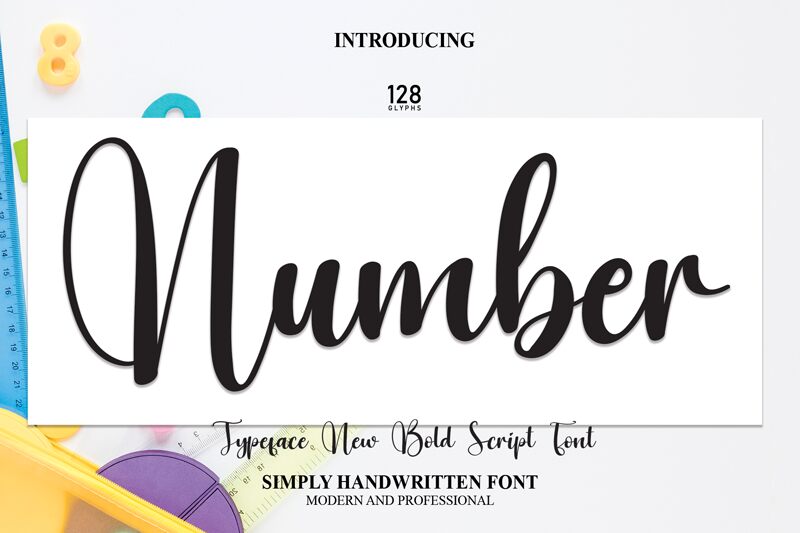
Number
Number, designed by Scratchones, is an exquisite calligraphy font that exudes a sense of fluid elegance and refined grace. Its semi-light weight offers a delicate balance between finesse and readability, making it an exceptional choice for designs that require a touch of sophistication without sacrificing clarity. The flowing lines and organic curves lend this font an artistic flair, perfect for invitations, branding, and elegant packaging.
Number's stylish appearance harnesses the timeless beauty of traditional calligraphy while maintaining a modern edge suitable for various creative endeavors.